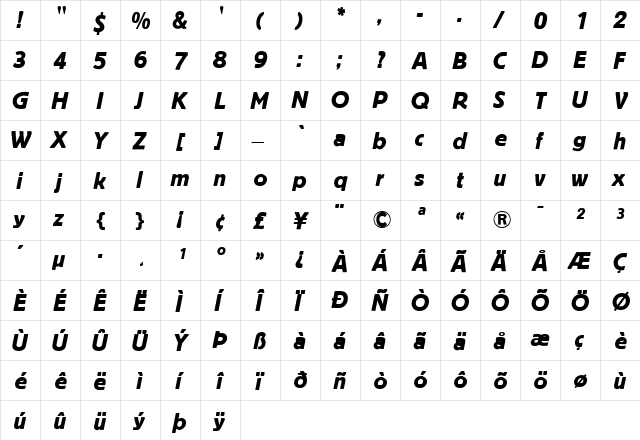
BlockBerthold RomanItalic
Design Context for BlockBerthold Typeface
BlockBerthold is a composed and adaptable typeface that performs quietly and consistently across a wide range of design contexts. The dynamic lean of this cut emphasises speed and emphasis in any layout.
Pro Tip: Use BlockBerthold for emphasis, pull quotes, and subheadings where its slanted energy can add rhythm to the layout.